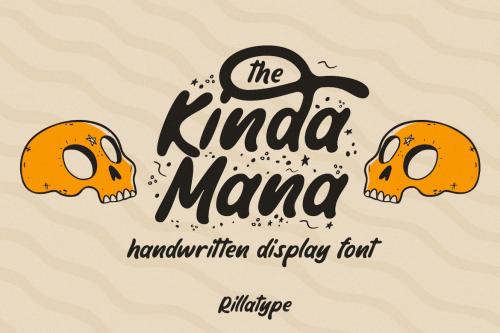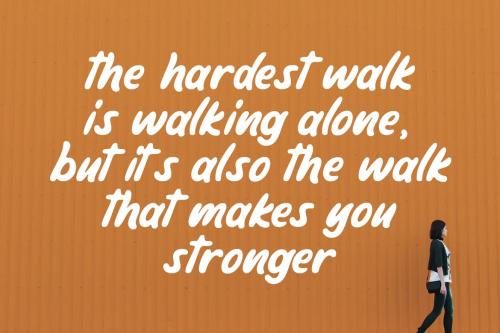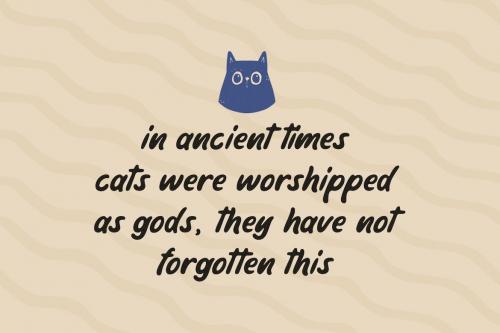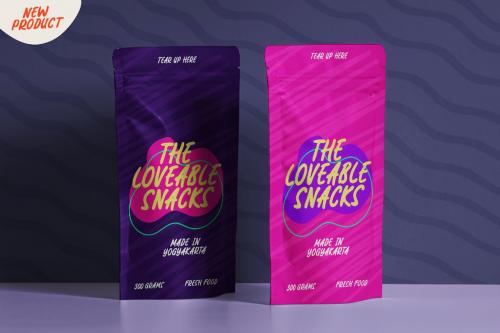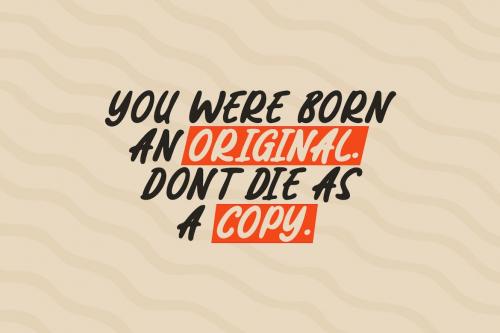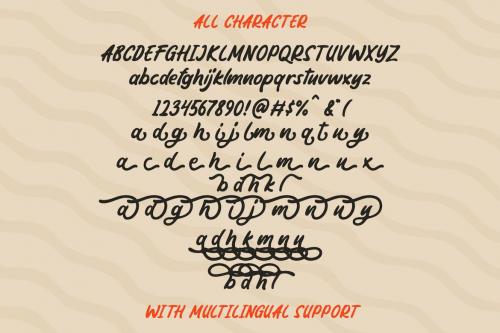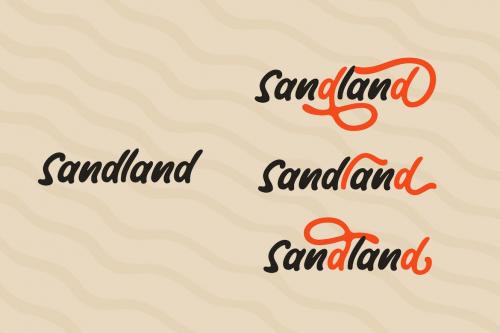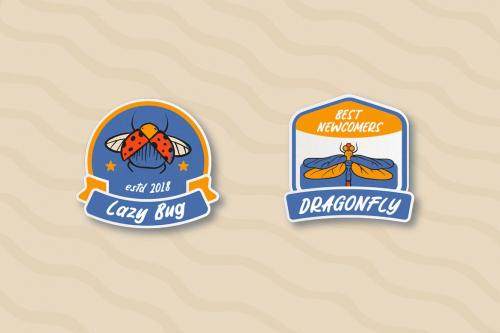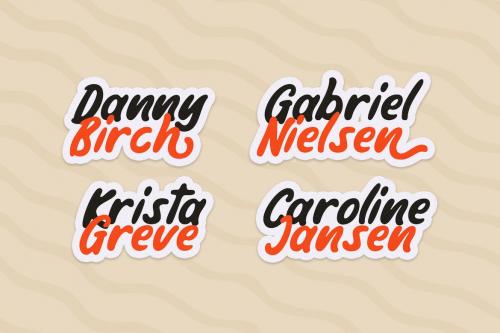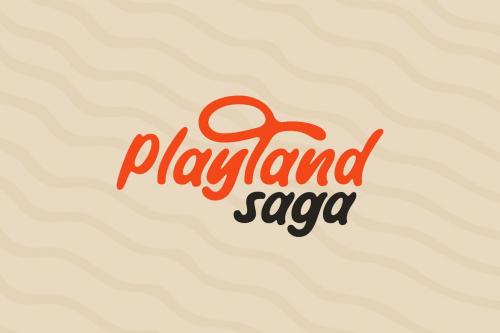
Kindamana - 手写显示字体
The Kindamana - Handwritten Display Font
Introducing, **The Kindamana Handwritten Display Font**. This type of font is carefully made to give the fun and cute feeling and to fit perfectly for quotes, branding, packaging, logotype, headline, books, novels, etc.
This font have up to 6 alternates set that you can mix and match!
Features :
+ uppercase & lowercase
+ numbers and punctuation
+ multilingual
+ alternates